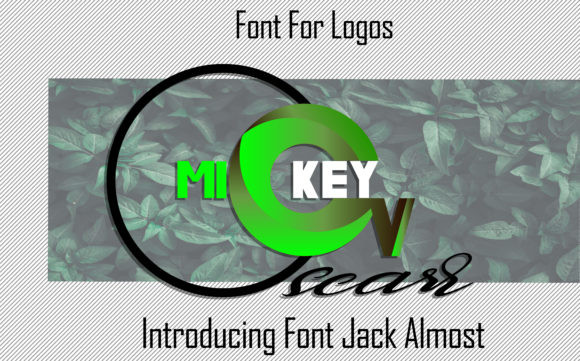
Jack Almost Font
Jack Almost is a bold and authentic display font. Masterfully designed to become a true favorite, this font has the potential to bring each of your creative ideas to the highest level!